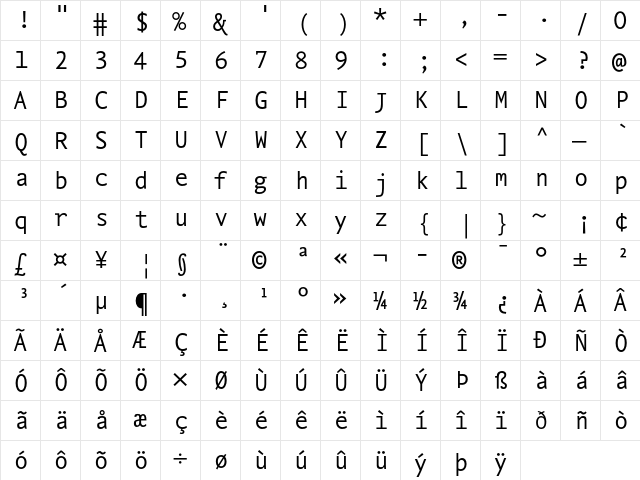
NexusTypewriterTF-Regular Regular
Design Context for NexusTypewriterTF-Regular Typeface
NexusTypewriterTF-Regular brings the precise, column-aligned rhythm of monospaced typography to designs that value technical clarity and systematic order.
Pro Tip: Pair NexusTypewriterTF-Regular with a proportional sans for UI contexts where code-style labels and regular body copy need to coexist.